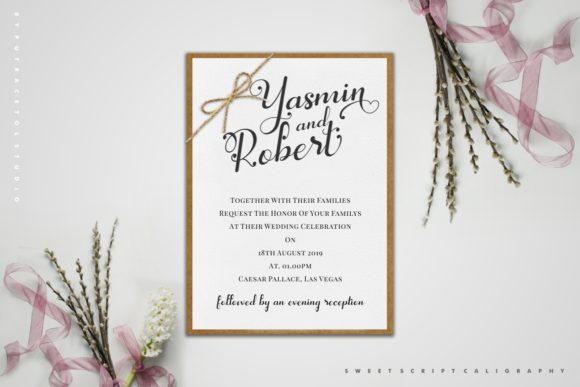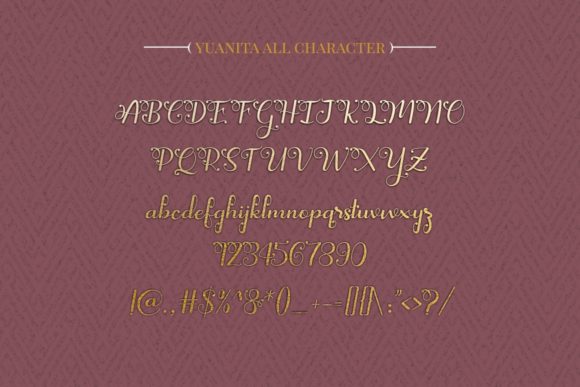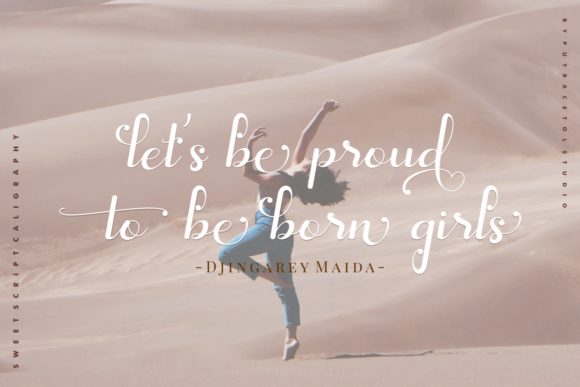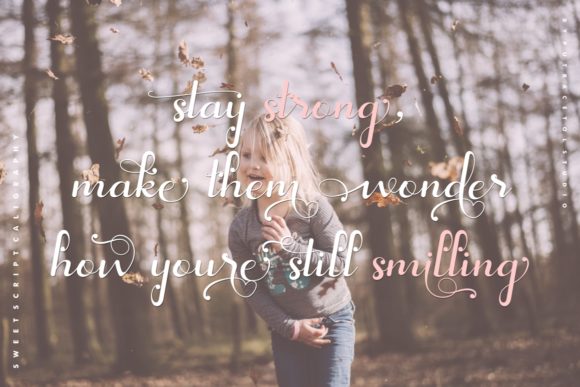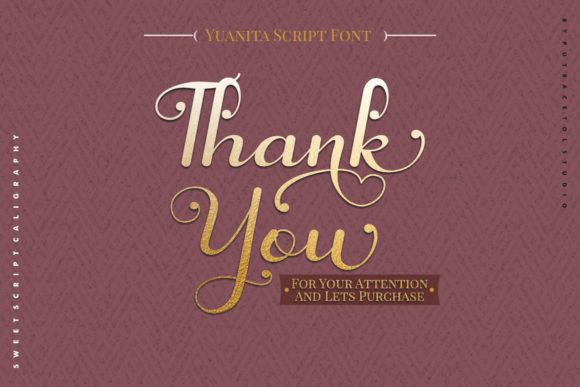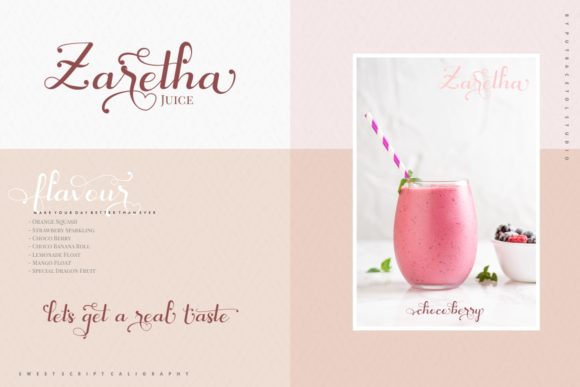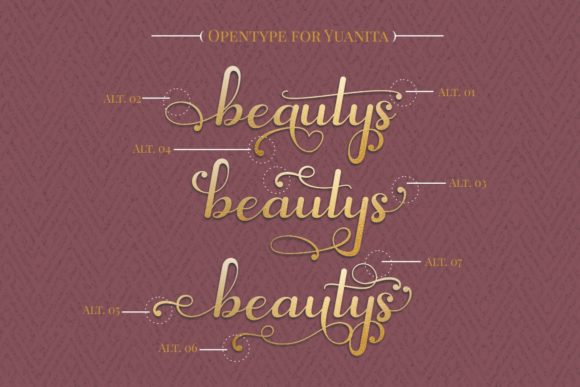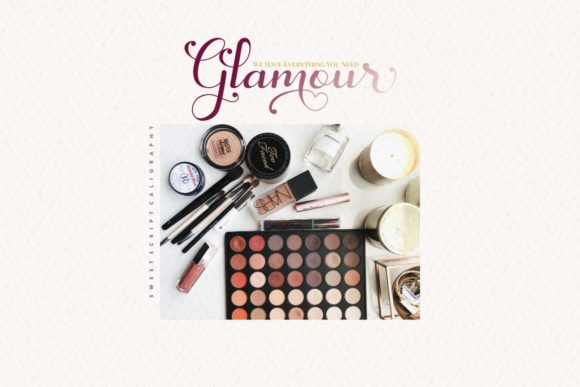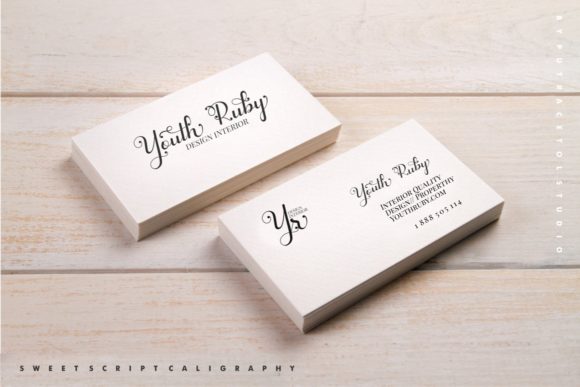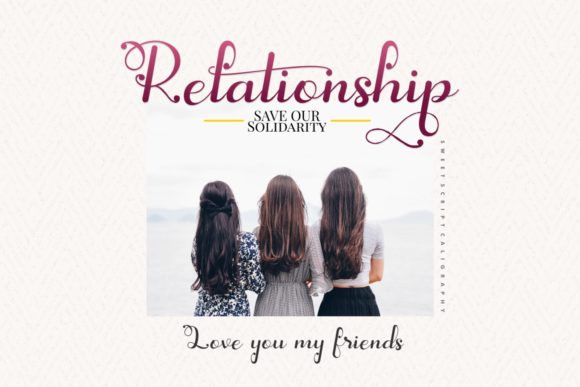
HomeScript FontsYuanita Font Script Fonts Yuanita Font FacebookXPinterestWhatsApp Yuanita Font Poster 2 Yuanita Font Poster 3 Yuanita Font Poster 4 Yuanita Font Poster 5 Yuanita Font Poster 6 Yuanita Font Poster 7 Yuanita Font Poster 8 Yuanita Font Poster 9 Yuanita Font Poster 10 Yuanita Font Poster 11 Yuanita Font Poster 12 Yuanita Font Poster 13 Yuanita Font Poster 14 About Yuanita Font Yuanita is a beautiful modern calligraphy font. This font is feminine, elegant, and modern. DOWNLOAD ON CREATIVE FABRICAThis font is sold and delivered by Creative Fabrica. Font Canyon may earn a commission if you buy through this link. People also explored Sales Special Offers Dingbats Font Lucasih Hempura Font Melody Font Wedding School Font Cheese Latte Font Vanilarita Font Brillyo Font Feorentina Font 529 0 TagsYuanita Font Previous articleAnggela Styled FontNext articleArsiran Font LEAVE A REPLY Cancel reply Comment: Please enter your comment! Name:* Please enter your name here Email:* You have entered an incorrect email address! Please enter your email address here Website: Save my name, email, and website in this browser for the next time I comment. Personal Use Free Dacquoise Personal Use Free Read more about this font Cottage Personal Use Free Read more about this font Engine Personal Use Free Read more about this font Arc Personal Use Free Read more about this font BLOG Elegant Wedding Invitation Fonts – Handwritten & Script Fonts Elegant Wedding Invitation Fonts Your wedding day is one of the most important moments of your life, and every detail matters—including your invitation design. Our... To increase your work productivity, choose the most readable fonts. Top 10 Handwritten Fonts That Elevate Your Designs Top 7 Google Fonts Alternatives for Faster and Privacy-Friendly Web Design (2025)